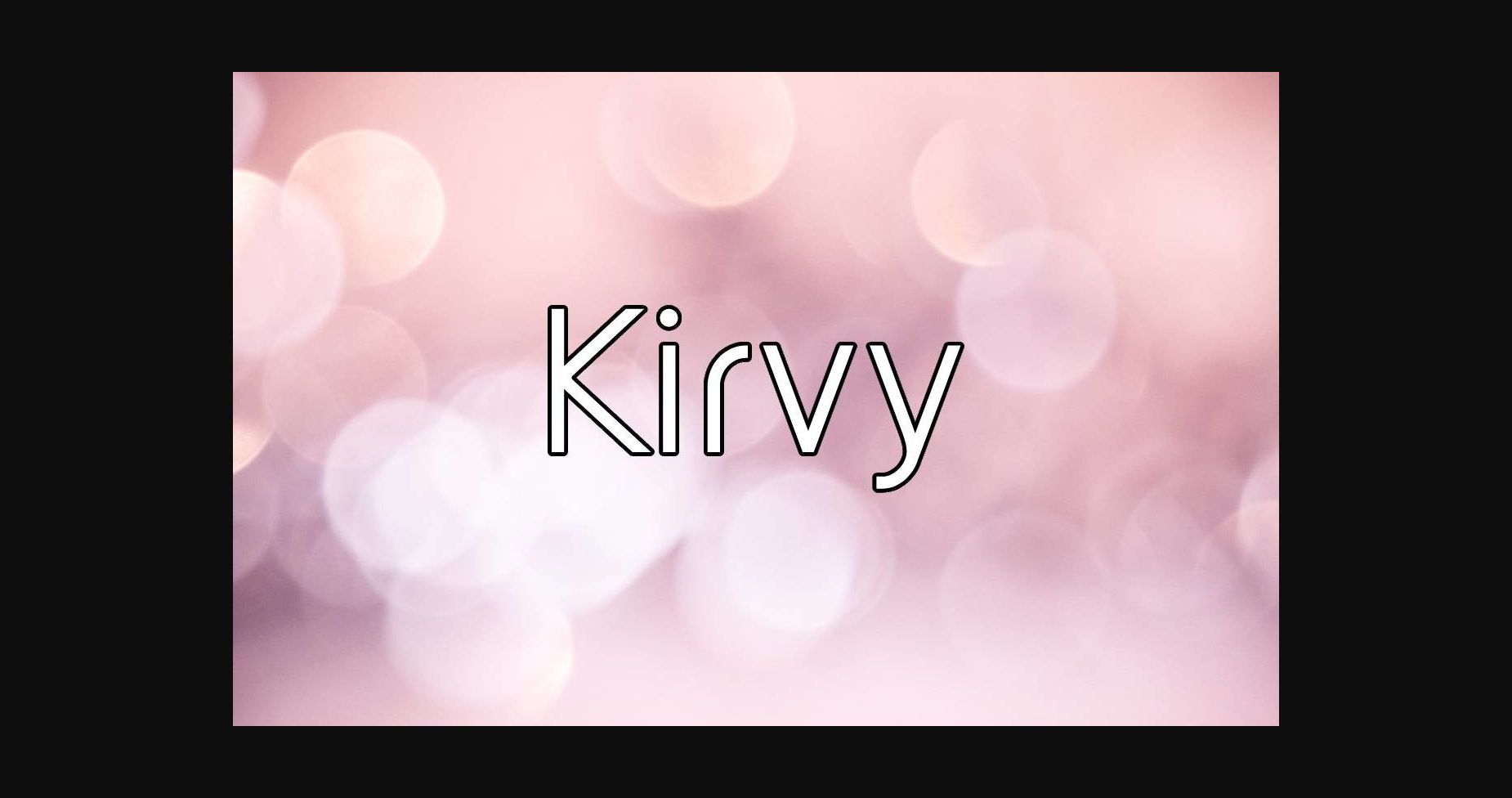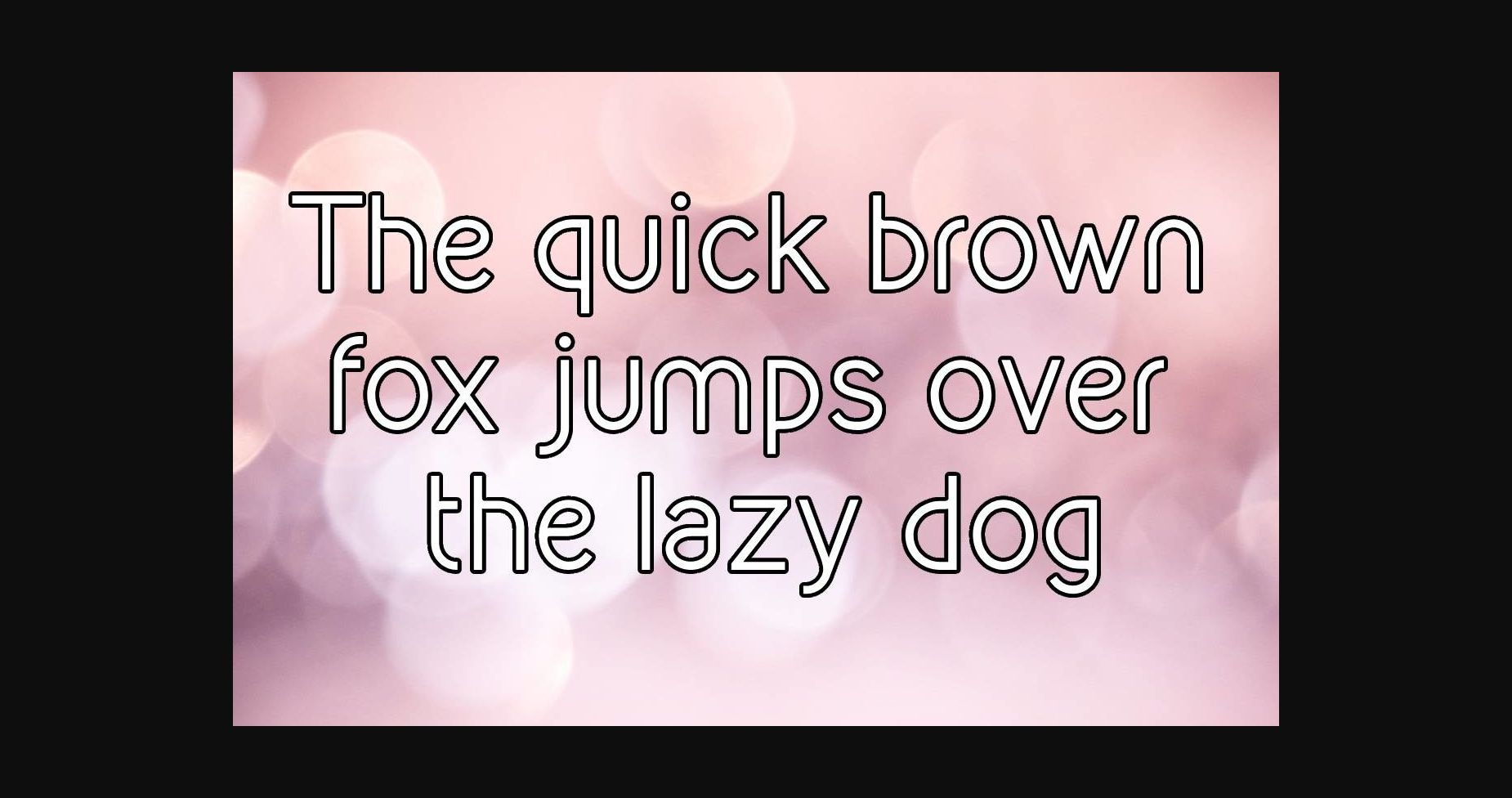
About Kirvy Font
Kirvy is a stunning, beautiful and flowing font. It has beautiful and well balanced characters and as a result, it matches a wide pool of designs. Add it to your most creative ideas and notice how it makes them come alive!